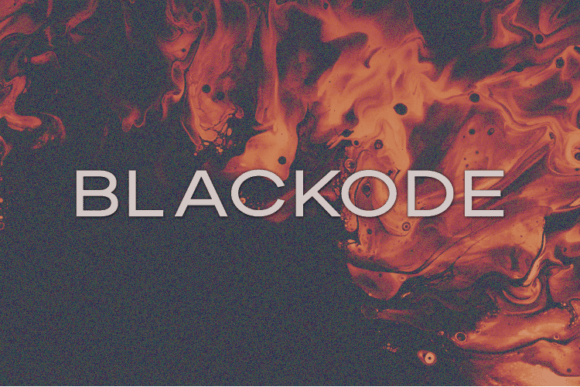
The Ultimate Guide to Blackode Font: Elevate Your Designs with Style
I’ll never forget the time I was working on a wedding invitation project, and my client asked for a font that was both modern and elegant. I scoured the internet, tried countless fonts, but nothing seemed quite right. That was until I stumbled upon Blackode Font. ✨ It was love at first sight! The clean lines, the sophisticated feel, and the versatility – it was exactly what I needed. In this article, I’ll share my experience with Blackode Font, its features, and how to make the most of it in your designs.
An Honest Review of Blackode Font
- ✨ Extremely versatile: perfect for logos, weddings, invitations, quotes, advertisements, print, magazines, and more!
- ✅ Modern and classy sans serif typeface that instantly elevates any design
- 💡 Wide range of applications, from digital to print
- 👍 Easy to read, even at small sizes
While Blackode Font is an excellent choice, there are a few things to keep in mind: 🤔
- ⚠️ Limited availability of stylistic alternates, which might be a drawback for some designers
- ⚠️ Not ideal for body text, as it’s best suited for headlines and titles
A Practical Guide to Using Blackode Font
- Experiment with OpenType features, such as ligatures and stylistic alternates, to add a personal touch to your design
- Explore the font’s glyphs and stylistic alternates using the “Glyphs” panel or “Character” panel
The Story Behind Blackode Font
Blackode Font was designed with the goal of creating a versatile, modern sans serif typeface that could be used in a wide range of applications. The designer aimed to craft a font that was both elegant and clean, making it perfect for logos, titles, and headlines. 💡
| Font Name | Blackode Font |
| Author | A Christie |
Q: What type of projects is Blackode Font best suited for?
A: Blackode Font is perfect for logos, weddings, invitations, quotes, advertisements, print, magazines, and more! ✨
Q: Is Blackode Font available in different weights or styles?
A: Blackode Font comes in a range of weights and styles, making it versatile and adaptable to different design needs. 💪